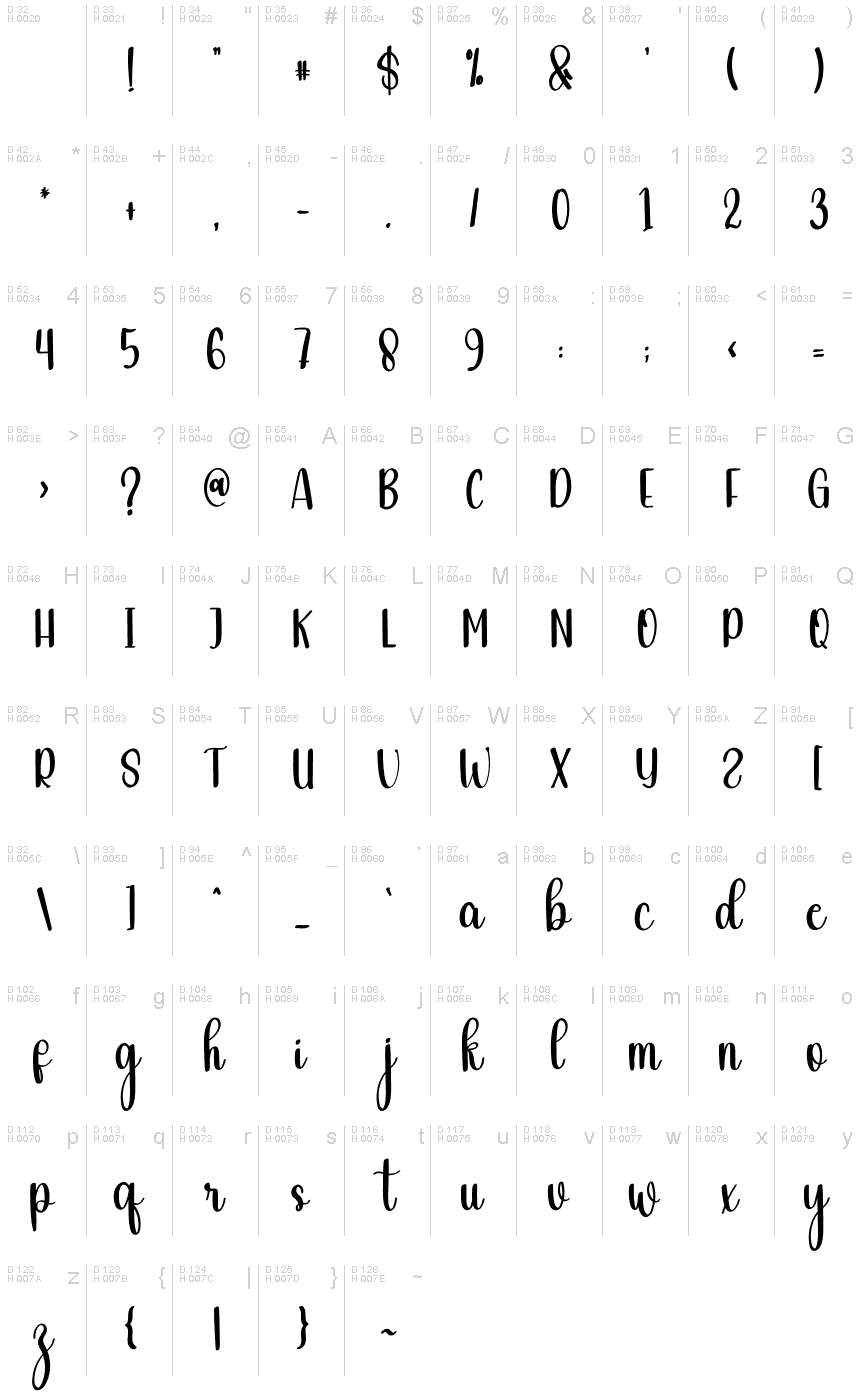
Middlelove
Middlelove is a captivating handwritten font by FreshtypeINK. With its condensed width, this font exudes elegance and sophistication, making it perfect for a wide range of projects. Whether you're designing wedding invitations, creating eye-catching logos, or crafting stylish branding materials, Middlelove will add a touch of class to your designs. Its seamless strokes and unique character variations make it an ideal choice for fashion magazines, beauty blogs, and lifestyle websites as well. Stand out from the crowd with Middlelove and let its handwritten charm elevate your creative endeavors to new heights.